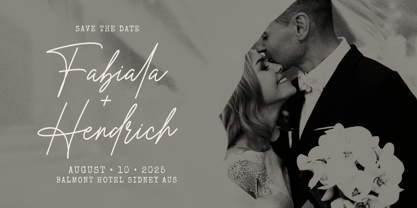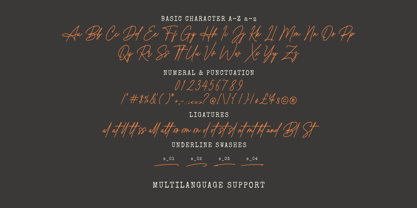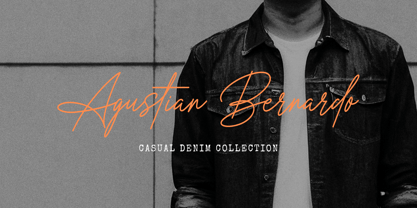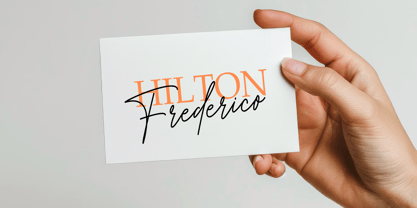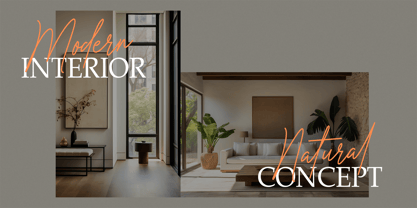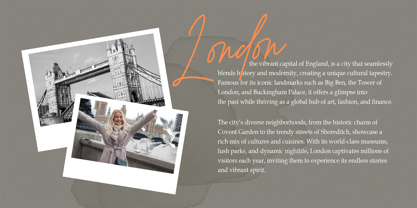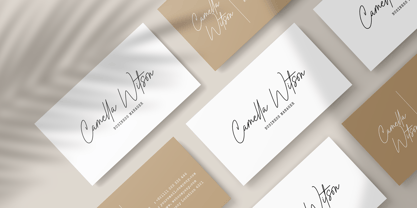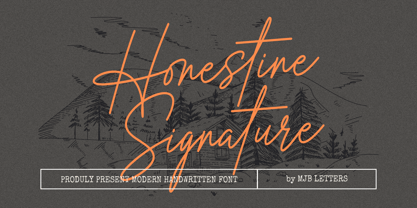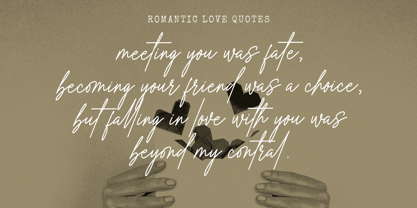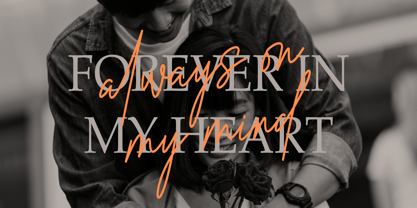
Honestine Signature
by MJB Letters
The Honestine Signature Font Family was designed by Muhammad Mujibulloh and published by MJB Letters. Honestine Signature contains 1 styles. More about this family
Honestine Signature is a refined handwritten script font that combines elegance with a contemporary monoline design. Its clean, consistent strokes make it versatile and sophisticated, while the added features of ligatures and underline swashes bring an extra flair of uniqueness to every character. Perfect for upscale branding, signature logos, wedding invitations, and personalized stationery, Honestine Signature shines in projects requiring a graceful, polished touch. This font is also ideal for social media graphics, product packaging, and fashion-related designs, enhancing any layout with a sense of modern luxury and style.
Designers: Muhammad Mujibulloh
Foundry: MJB Letters